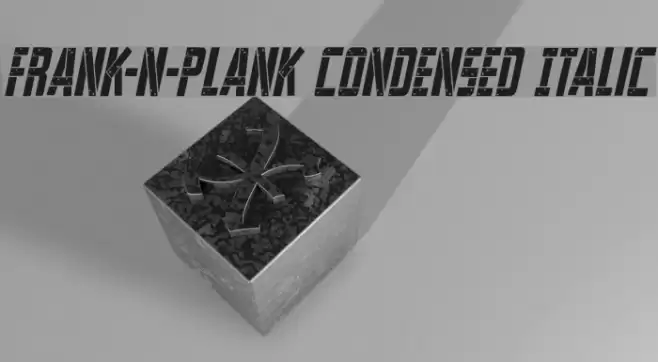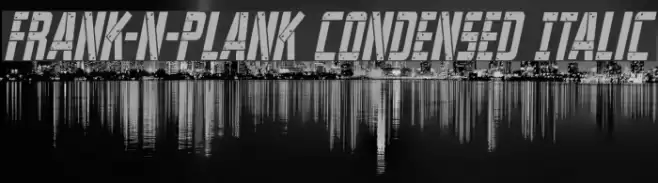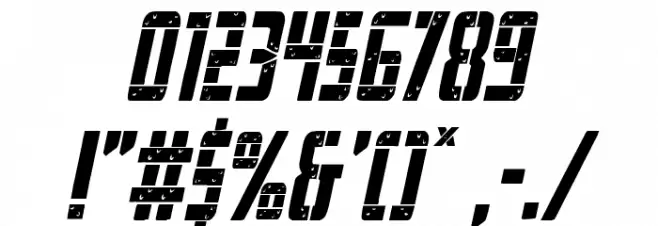
Frank-n-Plank Condensed Italic Font
Frank-n-Plank Condensed Italic Description
This font features a bold and condensed style with a distinct italic slant, giving it a dynamic and modern appearance. The characters are constructed with a unique pattern of dots and lines, reminiscent of industrial or mechanical design elements. This decorative style adds a playful yet edgy touch, making it stand out in any design. The uppercase and lowercase letters maintain a consistent height, contributing to a uniform and cohesive look. The numerals and special characters are designed to match the bold and condensed aesthetic, ensuring visual harmony across all elements.
A bold, condensed, and italic font with industrial decorative elements from Decorative fonts.
- Proposed Projects: Ideal for branding, posters, and any project requiring a bold, industrial aesthetic.
- Overall Style: Modern, Industrial